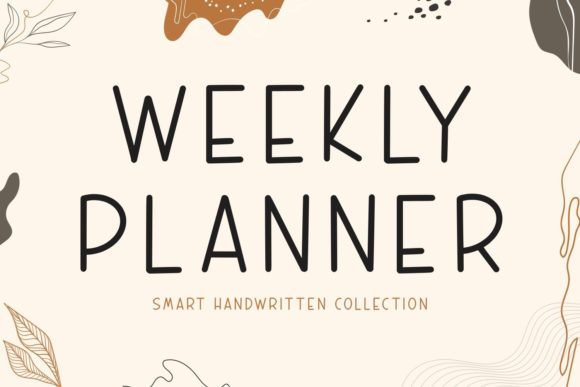
Introducing Weekly Planner Font, the ultimate solution for adding a touch of elegance and creativity to your projects! Developed by Mozatype, this script font is designed to captivate and inspire. With its clean and simple aesthetic, Weekly Planner Font is the perfect choice for anyone seeking a visually appealing and smart-looking handwriting font.
Crafted with meticulous attention to detail, Weekly Planner Font offers a wide range of possibilities for your creative ventures. Whether you're a seasoned designer or just starting out, this font is guaranteed to elevate your work to new heights.
Unlocking a world of endless opportunities, Weekly Planner Font is PUA encoded, allowing easy access to all glyphs and swashes. Say goodbye to limitations and embrace the freedom to express your unique style effortlessly.
Unleash your imagination and let Weekly Planner Font become your go-to companion for crafting, branding, decorating, and more. Its versatility knows no bounds and is perfect for farmhouse designs, shirts, SVG designs, blogs, logos, invitations, and beyond.
Imagine the impact this font will have on your branding efforts. With its captivating charm, Weekly Planner Font will ensure your message stands out from the crowd, leaving a lasting impression on your audience.
Embrace the power of Weekly Planner Font and witness the transformation it brings to your projects. Whether you're looking to add a personal touch to your crafts or seeking a professional aesthetic for your brand, this font is the answer you've been searching for.
With its ability to evoke emotions, Weekly Planner Font will effortlessly convey the essence of your ideas. It will inspire creativity, spark curiosity, and leave your audience wanting more.
Don't settle for ordinary fonts when you can have the extraordinary. Choose Weekly Planner Font and let your creativity soar. Elevate your designs, captivate your audience, and make a statement that will be remembered.
Experience the magic of Weekly Planner Font today and unlock a world of endless possibilities. Your journey towards extraordinary designs starts here!